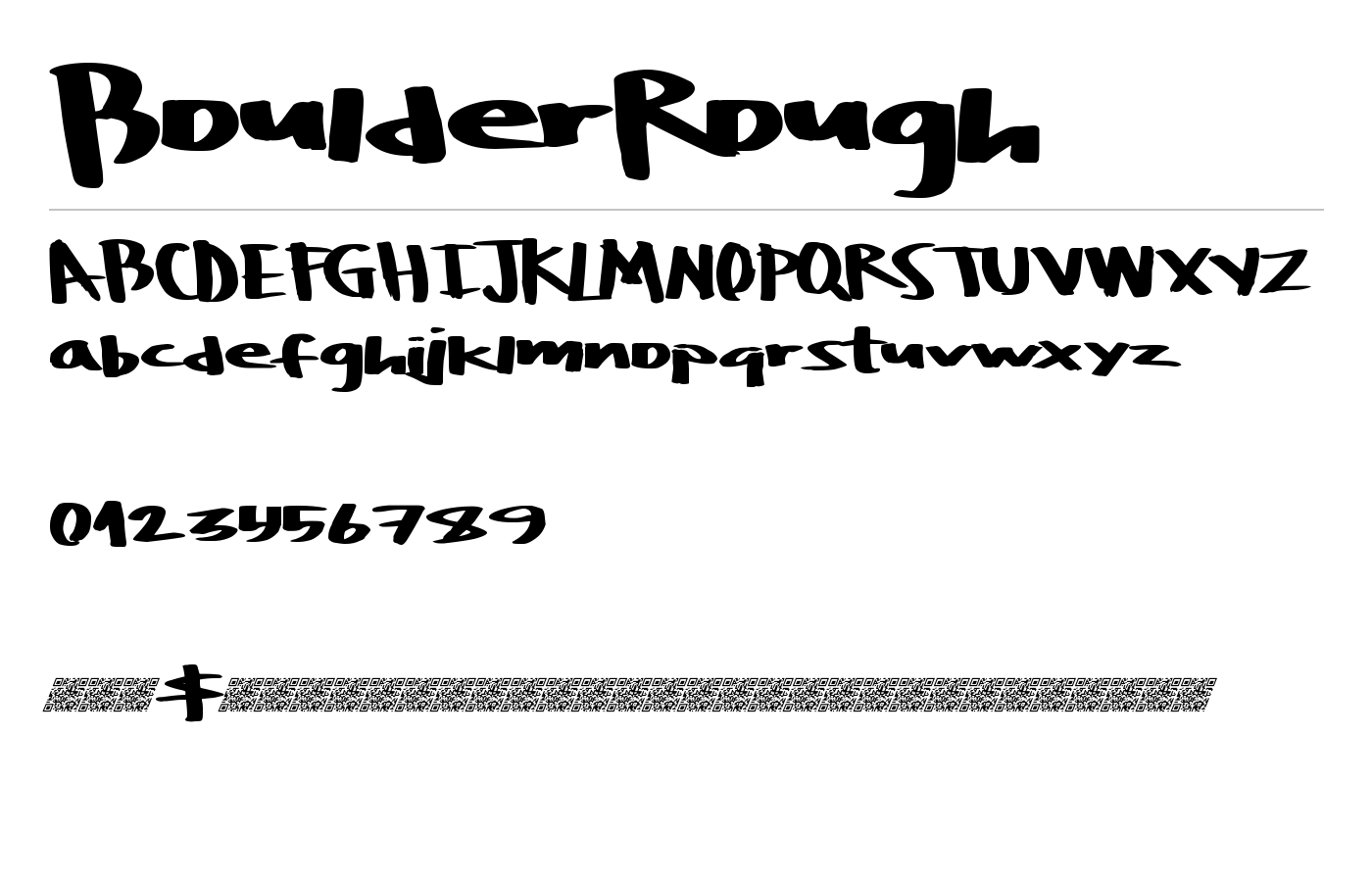
BoulderRough is a bold, playful handwritten sans serif font with an informal, brush-stroke style. Its chunky letterforms and lively irregular shapes give it an energetic, creative feel that works well for casual branding, posters, and eye-catching headlines. This font's unique personality makes it ideal for projects seeking a friendly, approachable vibe with a handcrafted touch.
BoulderRough Font
About BoulderRough Font